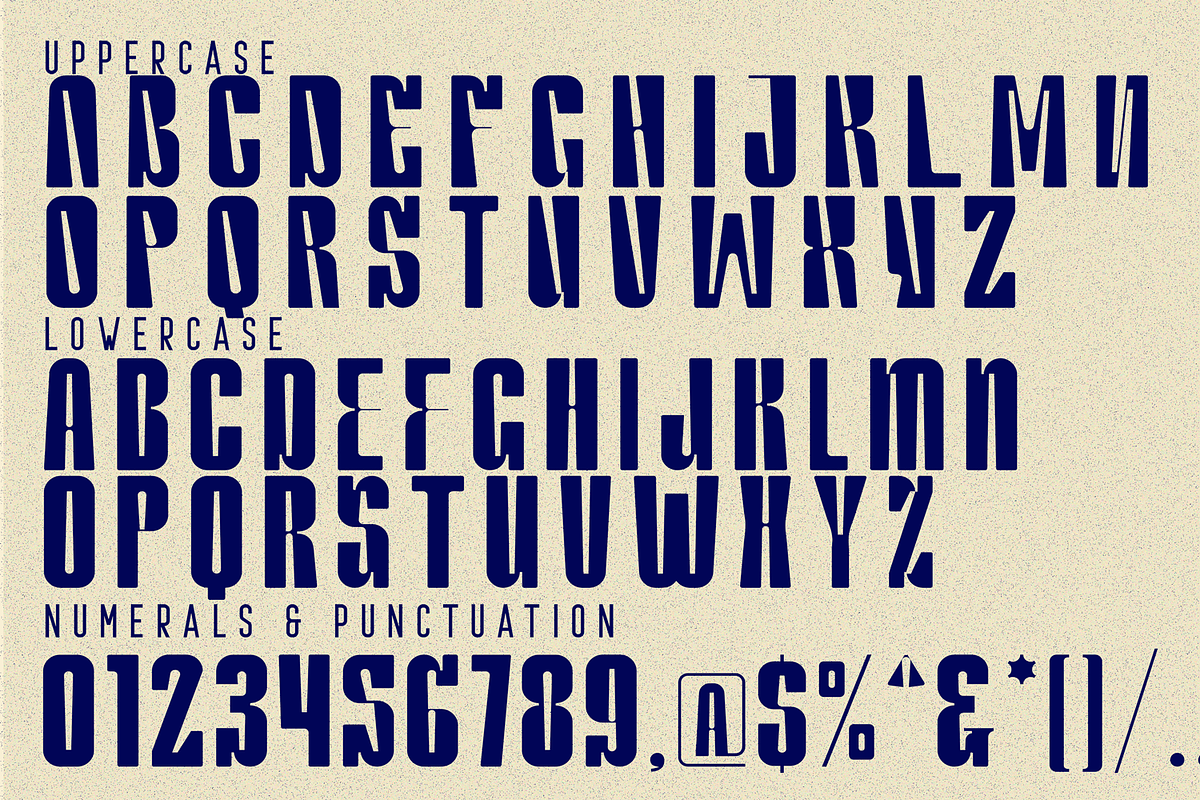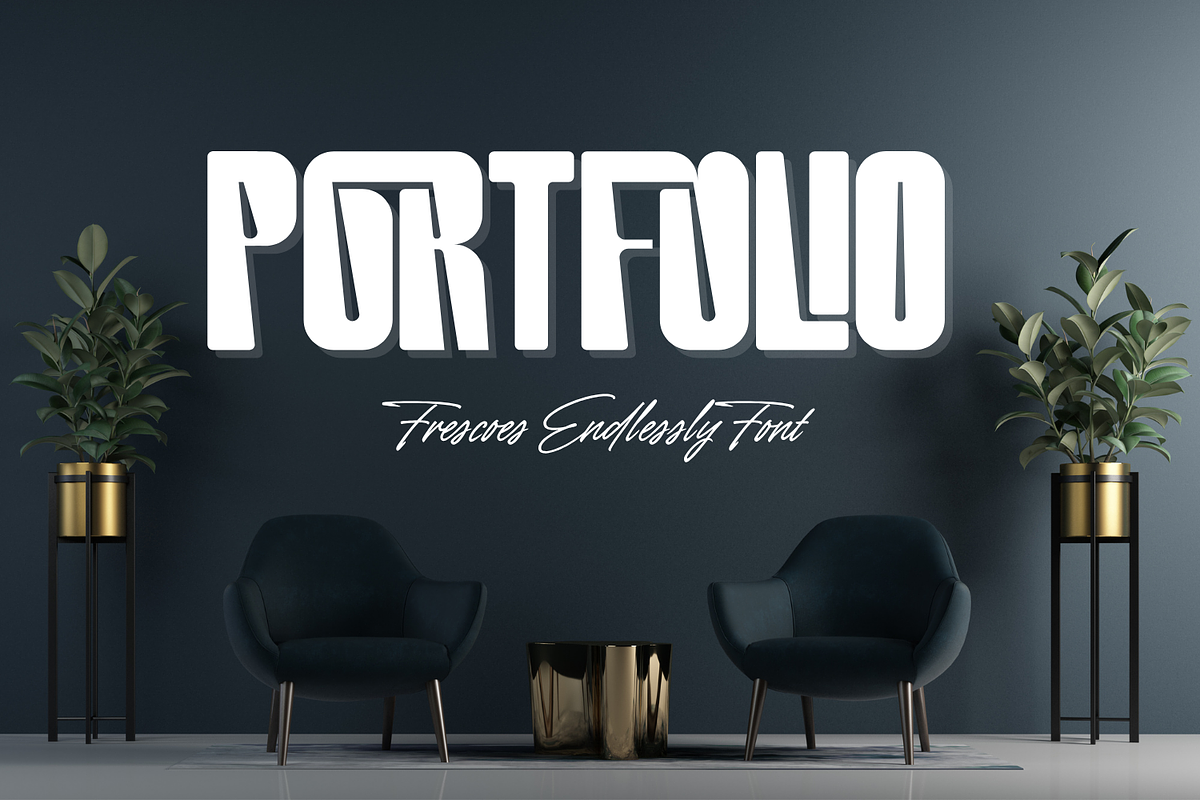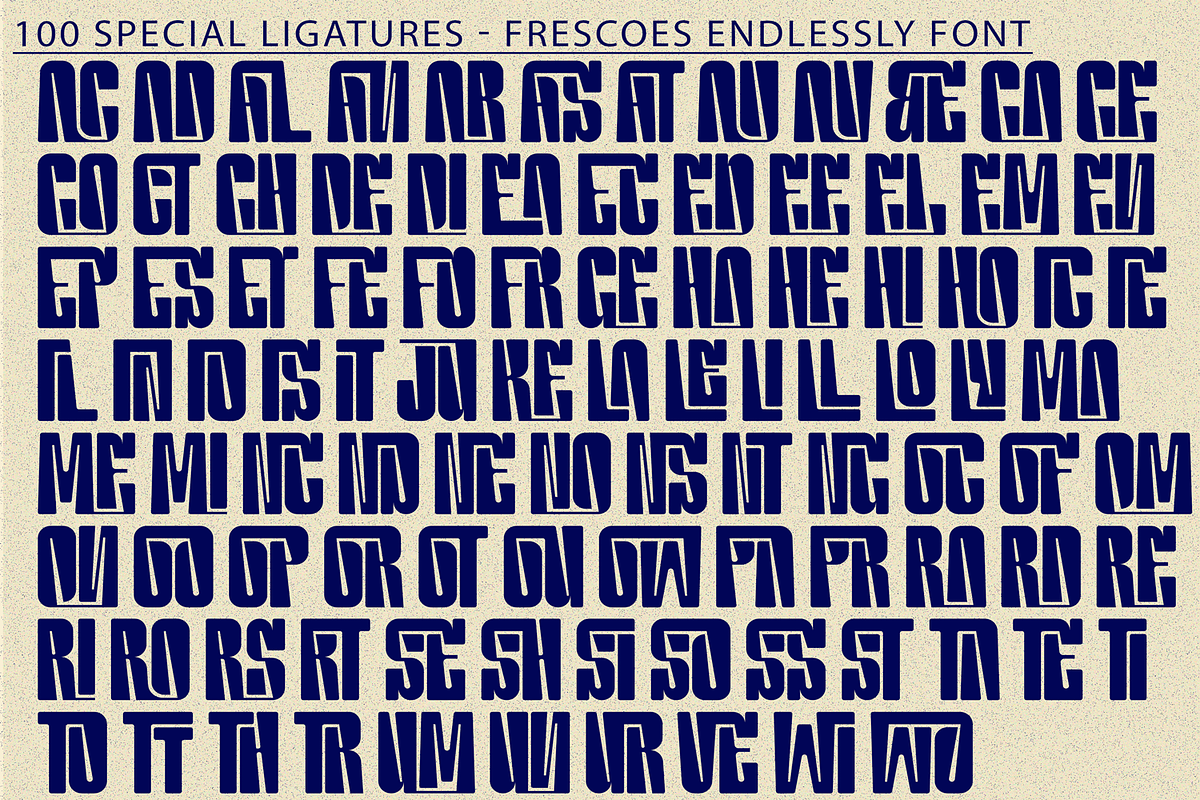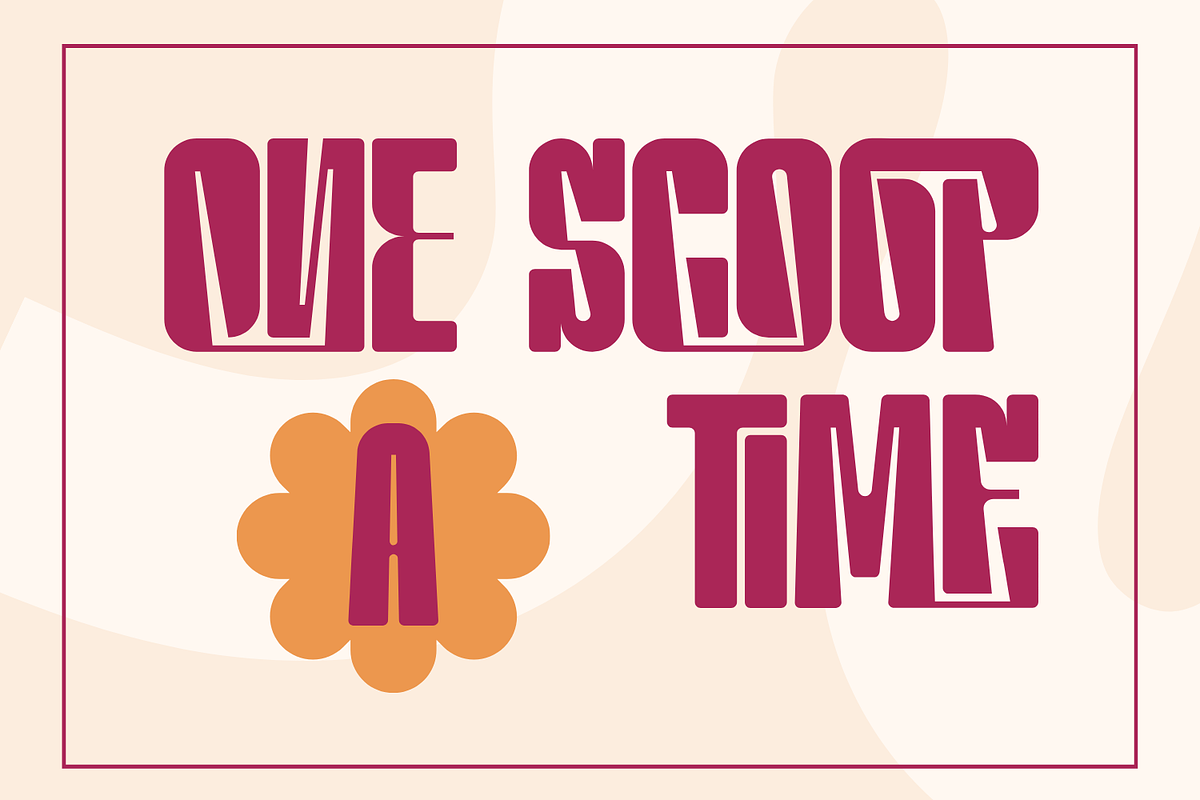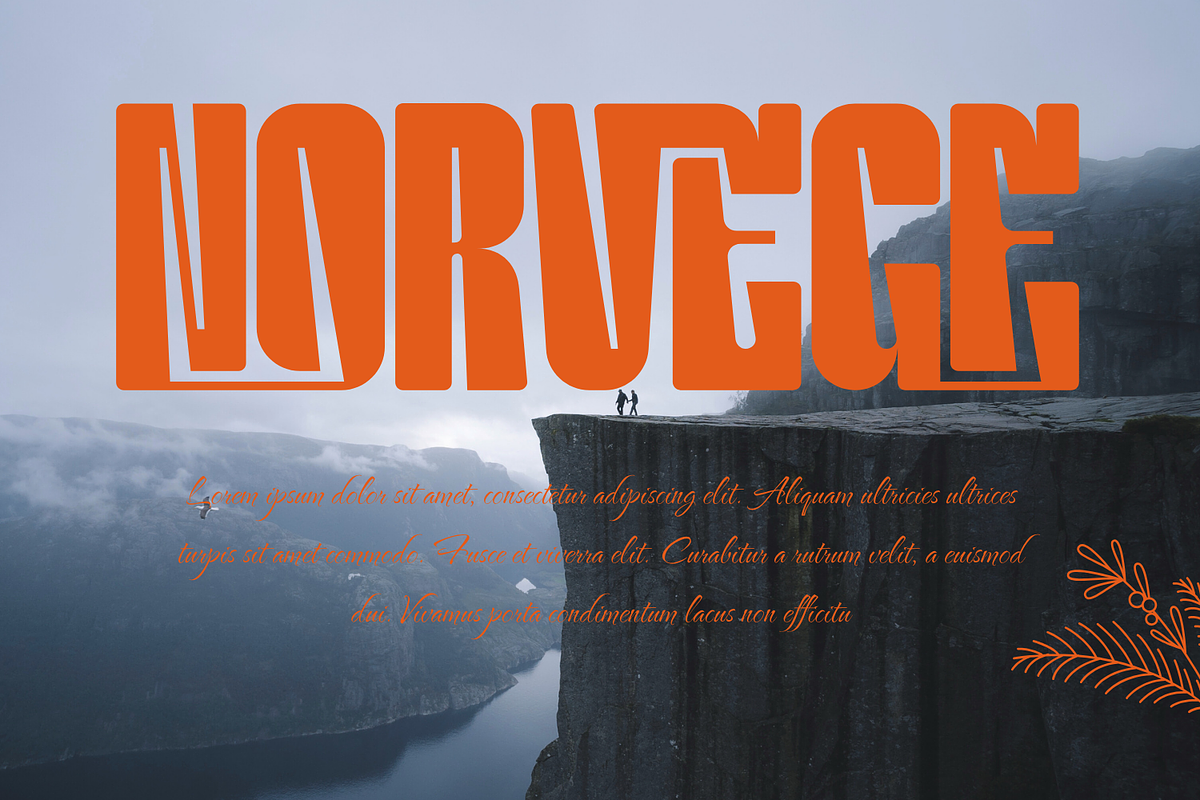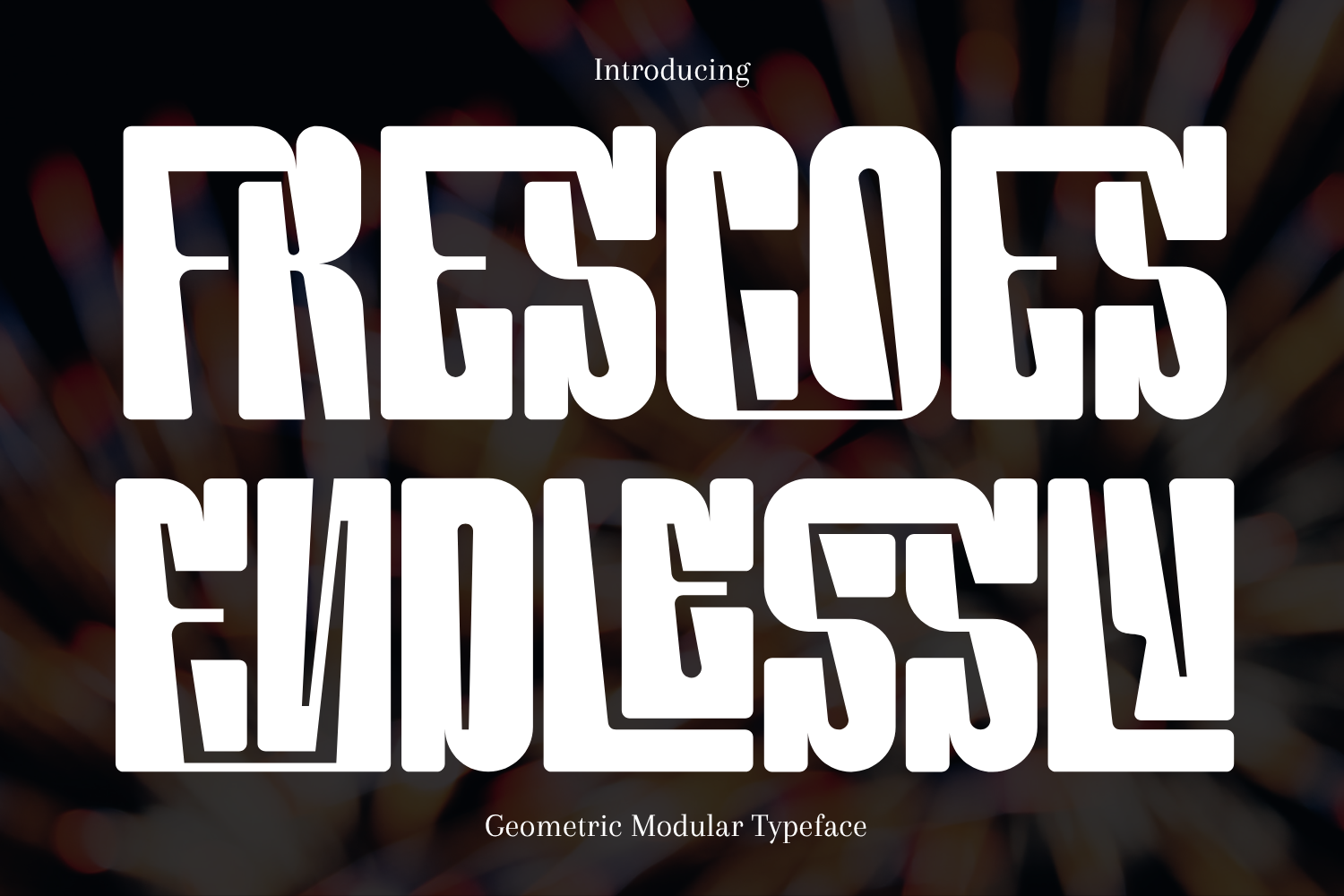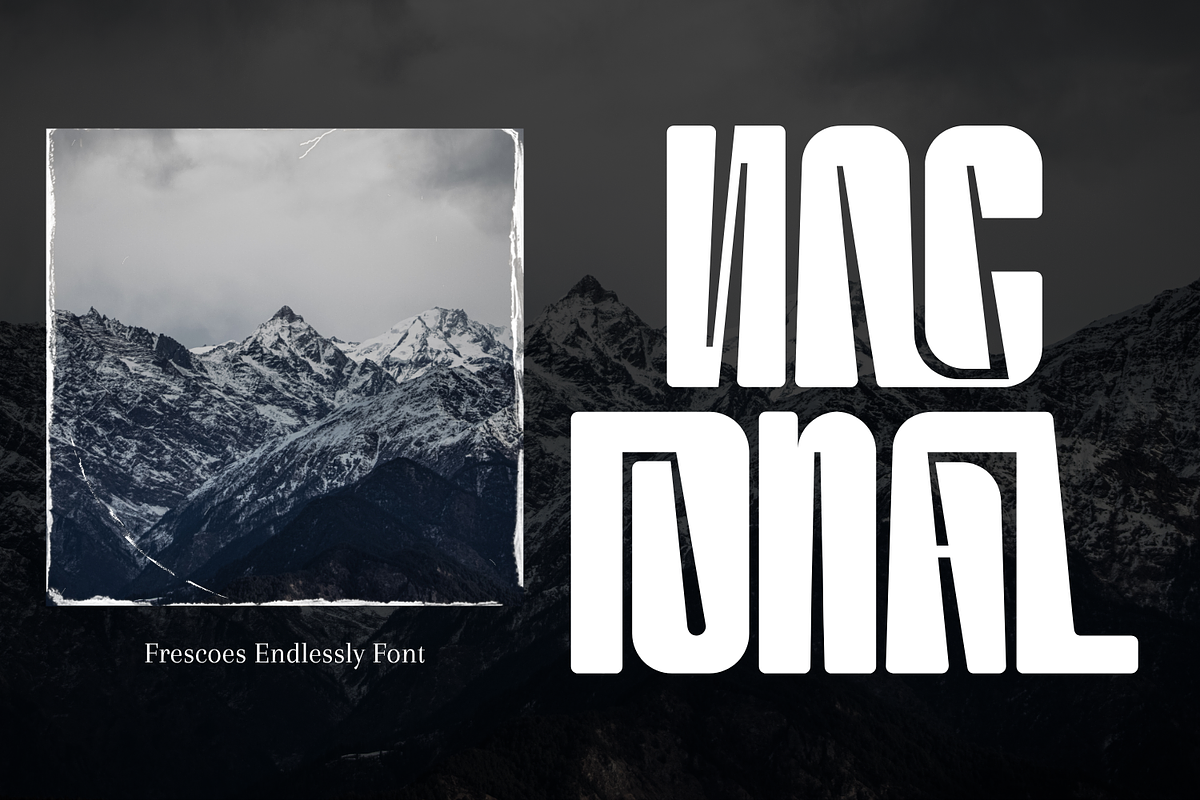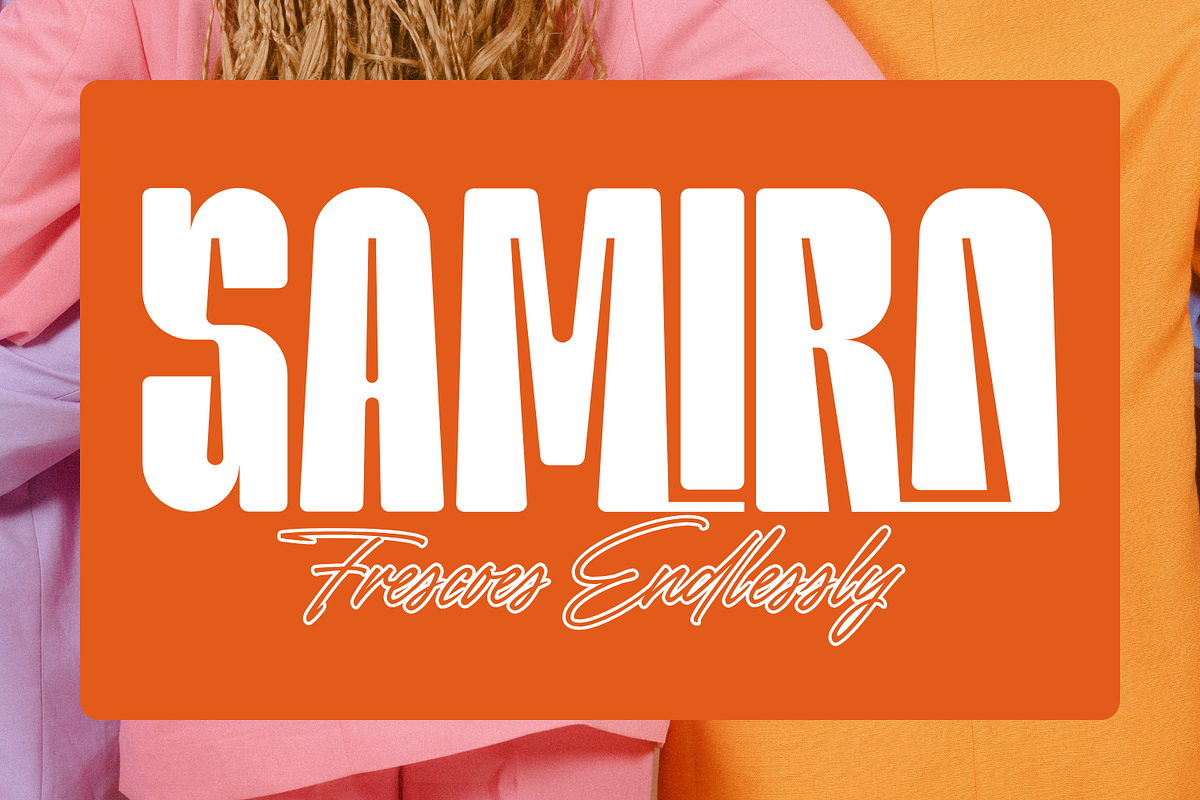
Frescoes Endlessly - Condensed Font
Frescoes Endlessly - Condensed Font – Bold Modular Experimental Display Font, a bold modular experimental display font built from heavy geometric blocks and sharp internal cuts. Its ultra-thick forms, condensed proportions, and sculpted negative spaces create a powerful graphic rhythm that feels modern, dynamic, and unapologetically expressive. Each character is crafted with a unique carved-out structure, giving the font a distinctive motion-like effect that instantly grabs attention. Perfect for posters, album covers, branding, streetwear designs, titles, editorial layouts, and any project that needs a striking, modern, and fearless typographic identity, Frescoes Endlessly brings raw visual impact to every composition.
- Uppercase & Lowercase Letters
- Around 100 Special Ligatures & Alternates
- Accented Characters for multilingual support
About 100 ligatures combined with Stylistic Alternates Font:
ac ad al an ar as at au av be ca ce ch co ct de di ea ec ed ee el em en ep er es et fe fo fr ge ha he hi ho ie ic il in io ir is it ju ke la le li ll lo ly ma me mi nc nd ne ng no nt ns oc of om on oo op or ot ou ow pa pr ra rd re ri ro rs rt se sh si so ss st ta te th ti to tr tt um un ur ve wi wo